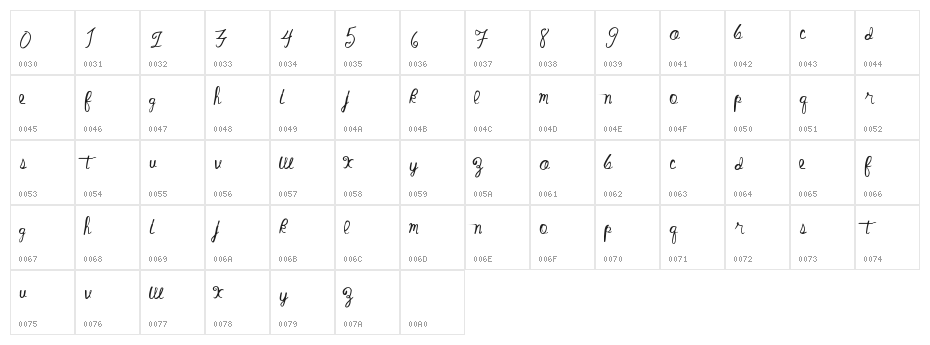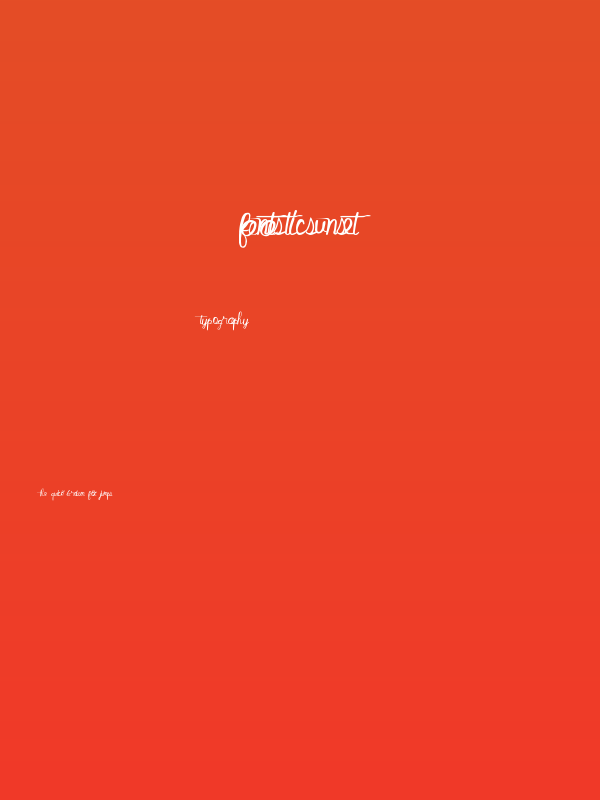
FantasticSunset Font
FantasticSunset Description
This font is a playful and expressive handwritten style that exudes a casual and personal touch. The letters are interconnected with a fluid motion, giving it a natural and organic feel. The strokes vary in thickness, adding a dynamic and lively character to the text. The uppercase and lowercase letters maintain a consistent style, with a slight slant that enhances the handwritten appearance. The numbers are clear and legible, while the special characters blend seamlessly with the overall design. This font is perfect for projects that require a personal and informal tone, such as invitations, greeting cards, or creative branding.
| Use Case | Headlines, Creative projects, Personal branding |
| Proposed Projects | Ideal for invitations, greeting cards, personal branding, and creative projects. |